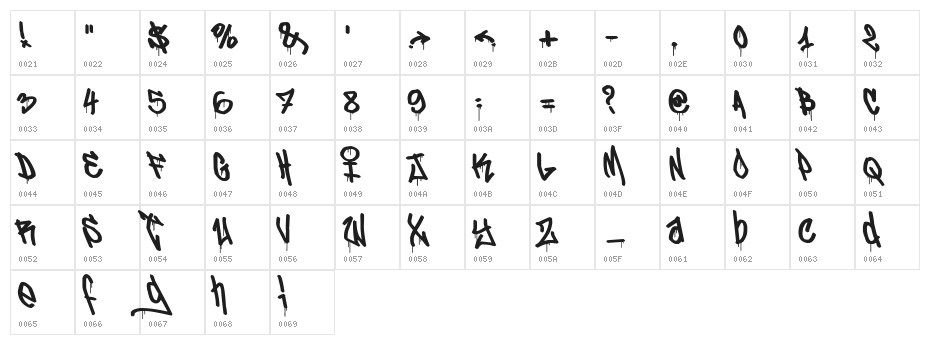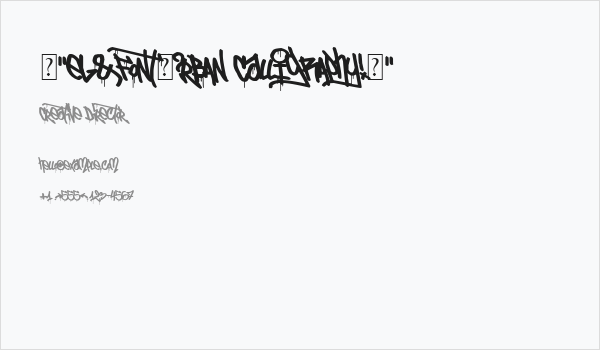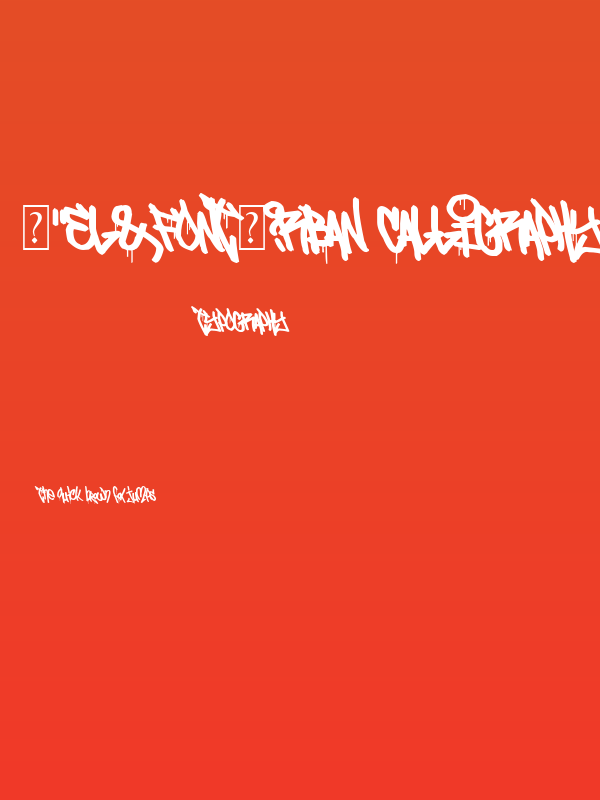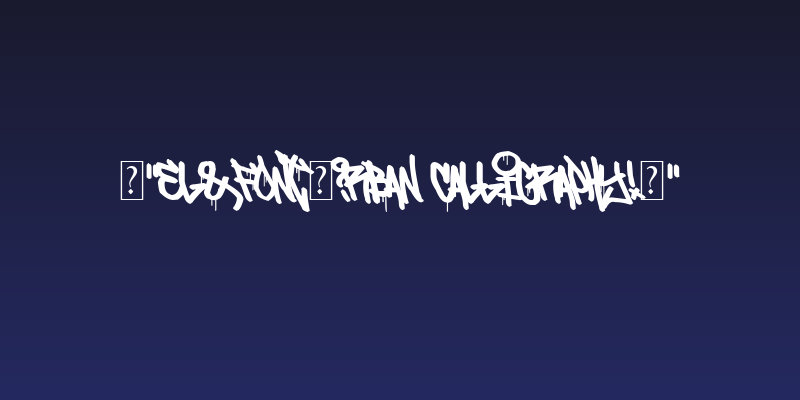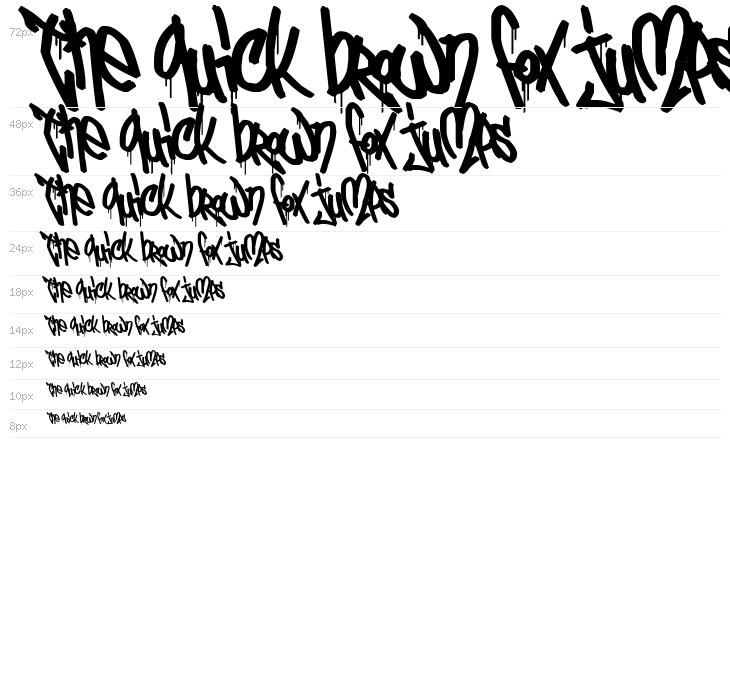
"eL&FoNt[?rBAN CallIgRAPhy!" Font
"eL&FoNt[?rBAN CallIgRAPhy!" Description
This font exudes an urban, graffiti-inspired aesthetic with a calligraphic twist. The letters are bold and dynamic, characterized by dripping effects that mimic spray paint. Each character is uniquely stylized, with exaggerated curves and angles that create a sense of movement and energy. The uppercase and lowercase letters maintain a consistent style, while the numbers and special characters integrate seamlessly into the overall design. This font captures the essence of street art, making it ideal for projects that require a bold and edgy visual impact.
| Overall Style | Urban, Graffiti, Calligraphic |
| Use Case | Logos, Posters, Album Covers |
| Proposed Projects | Perfect for street art murals, urban-themed posters, music album covers, and edgy branding projects. |